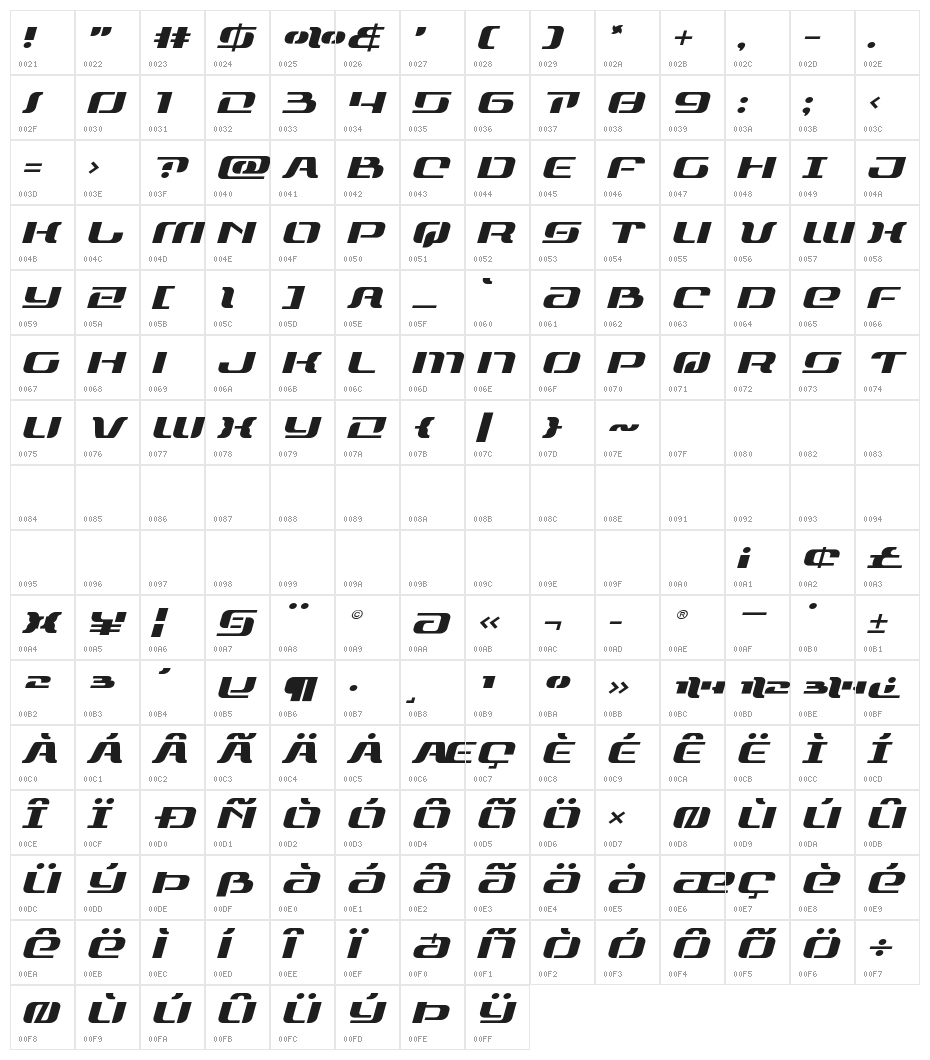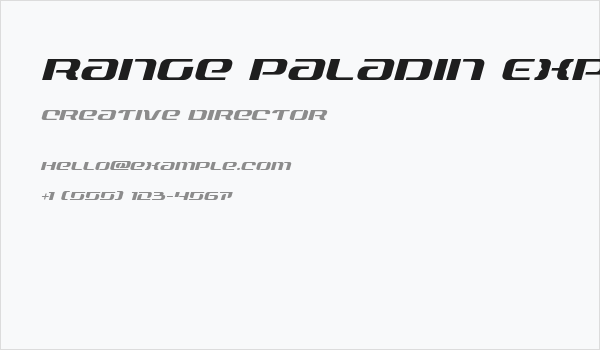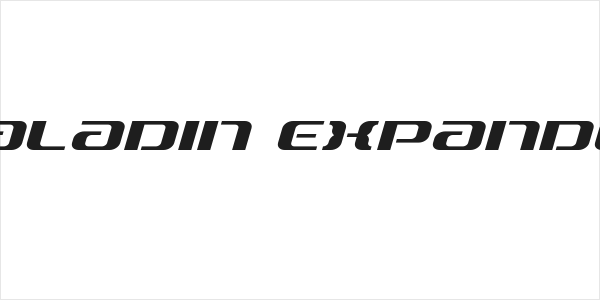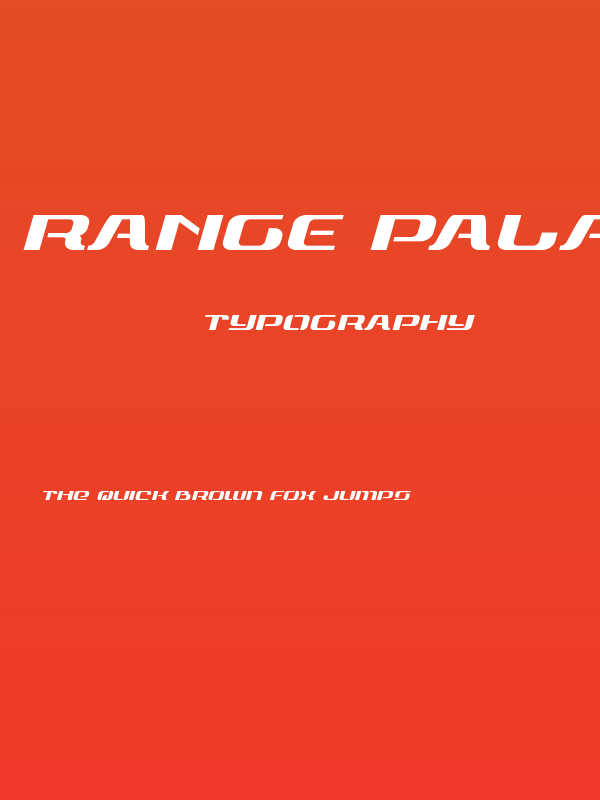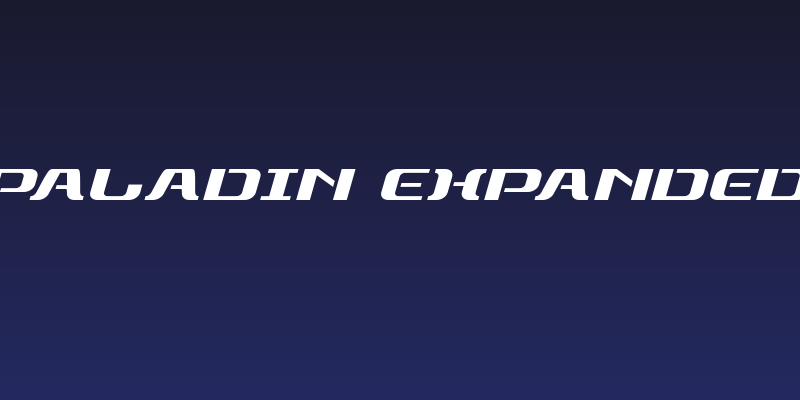
Range Paladin Expanded Italic Font
Range Paladin Expanded Italic Description
This font features a bold and futuristic design with an italic slant, giving it a dynamic and forward-moving appearance. The characters are expanded, providing a sense of space and openness. The strokes are consistent in thickness, contributing to a uniform and sleek look. The design incorporates sharp angles and smooth curves, creating a modern and technological feel. This font is highly legible and makes a strong visual impact, suitable for attention-grabbing headlines or branding materials.
| Proposed Projects | Ideal for technology branding, sci-fi themed projects, video game titles, and dynamic advertising campaigns. |